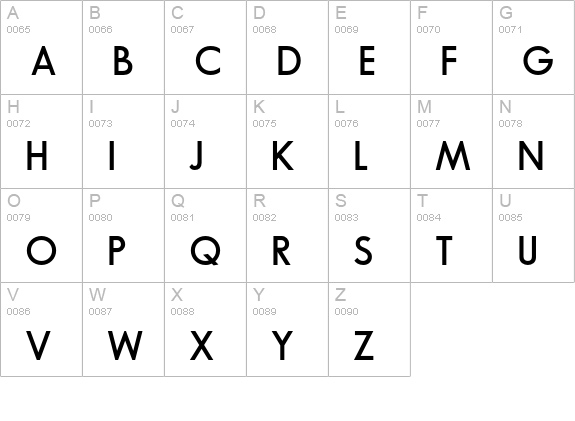
SansSerifFLF-Demibold is a sub-bold, structured variant in the SansSerifFLF typeface family \xE2\x80\x94 well suited to sub-headlines and emphasised passages.
Introducing SansSerifFLF-Demibold, a versatile and modern font that effortlessly captures attention with its bold and confident appeal. This font is the perfect choice for designers seeking a sleek and contemporary look for their projects. SansSerifFLF-Demibold boasts a unique blend of sharp edges and smooth curves, creating a perfect balance between professionalism and creativity. Its bold weight commands attention, making it ideal for headlines, logos, and branding materials. Whether you're designing a striking poster, a sleek website, or a captivating advertisement, this font is sure to make a lasting impression. But what sets SansSerifFLF-Demibold apart from the rest? Not only does it offer exceptional aesthetics, but it also comes with an unbeatable advantage – it's free! That's right, this high-quality font is freely available to download at FontsMarket.com. Now you can elevate your designs without breaking the bank. With its wide range of characters and extensive language support, SansSerifFLF-Demibold is a versatile typeface that can be used in various design projects. From print to digital media, this font shines in any medium, ensuring that your message is delivered with clarity and impact. So why wait? Download SansSerifFLF-Demibold today and experience the freedom of enhancing your designs with a font that effortlessly combines style, professionalism, and accessibility. Whether you're a seasoned designer or just starting out, this font is a must-have in your toolkit. Don't miss out on this incredible opportunity to elevate your designs with a font that's both visually stunning and free to use. Get your creative juices flowing and let SansSerifFLF-Demibold take your designs to new heights.